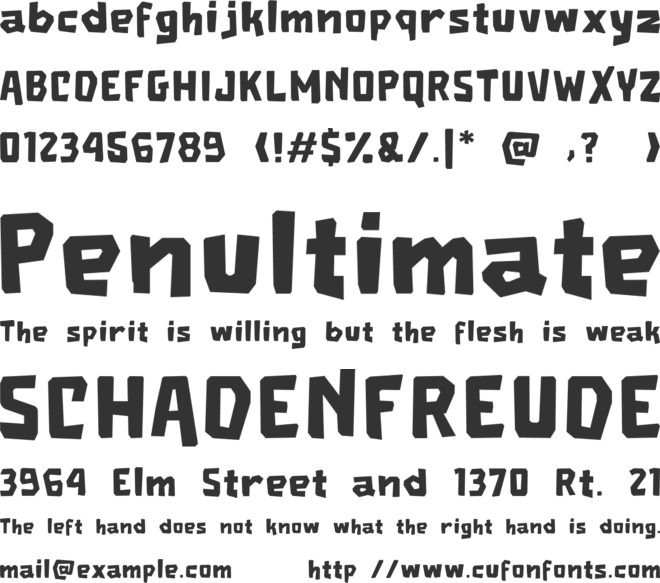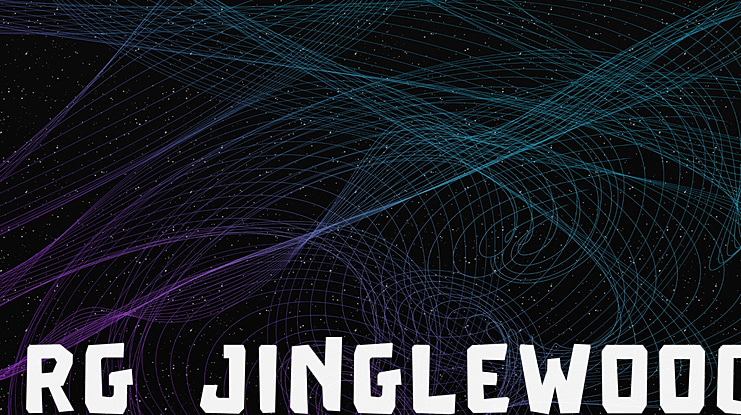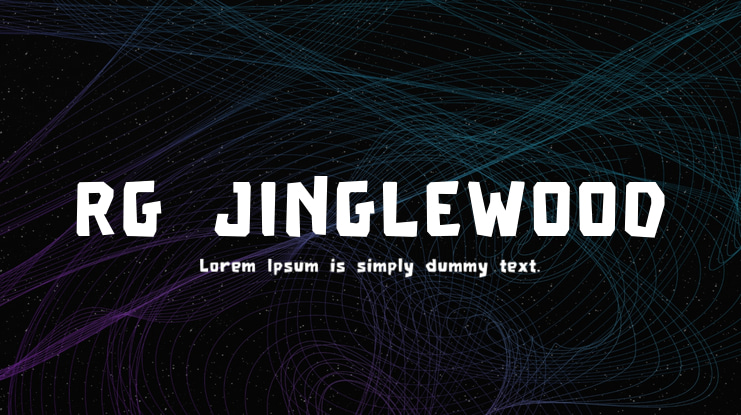
RG JINGLEWOOD Font
RG Jinglewood are decorative playful typeface with 3 different style that can easily representation your own style design. RG Jinglewood-Demo only avalaible for personal use only, will be on market soon. Any question feel free to contact us